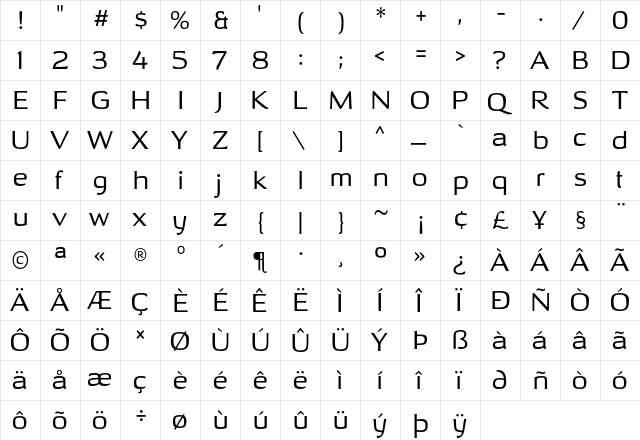
Ohitashi Regular
Design Context for Ohitashi Typeface
Ohitashi offers clean, dependable letterforms without strong stylistic allegiance, making it a practical choice for designers who need flexibility.
Pro Tip: Use Ohitashi in both headline and body roles to test its range before committing to a single application.